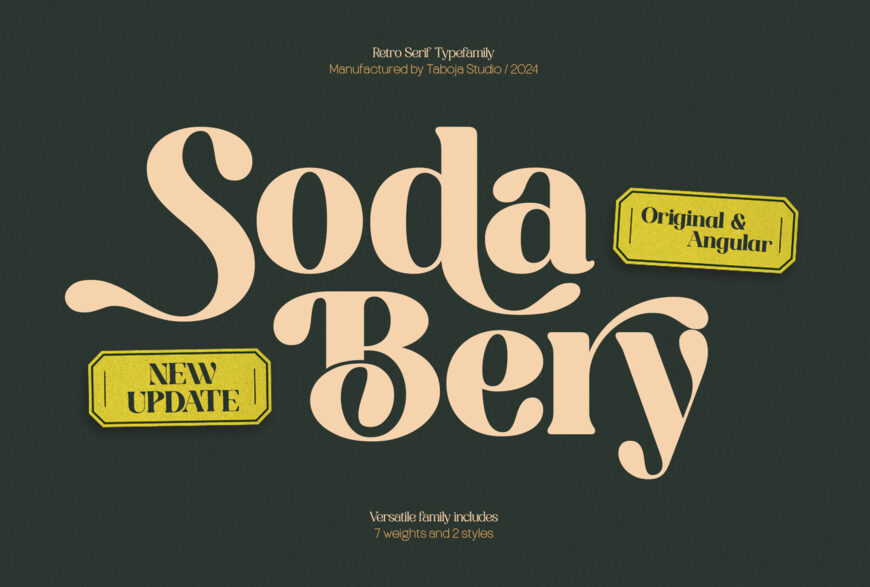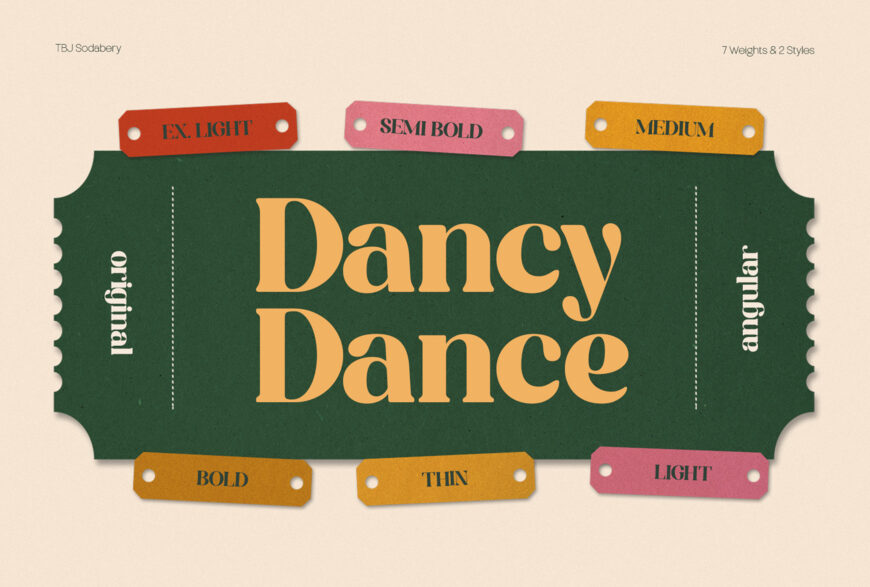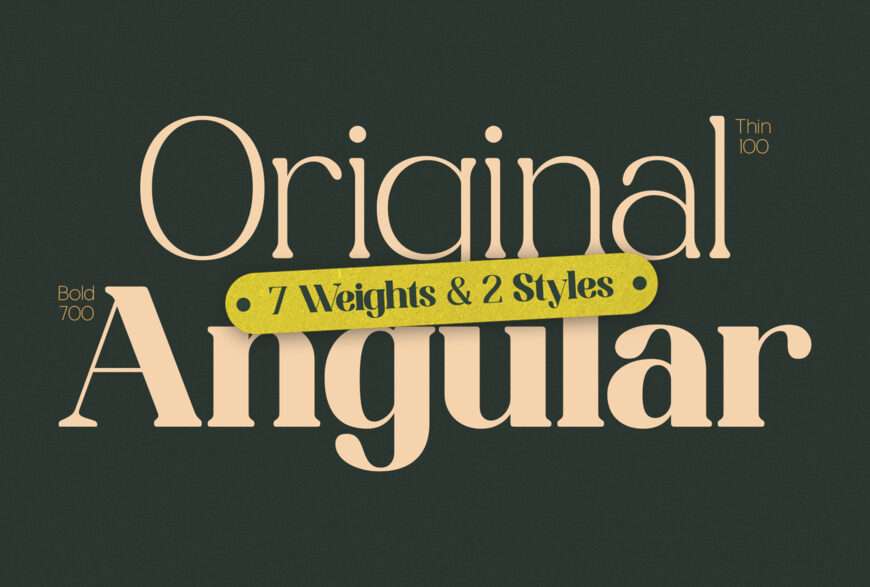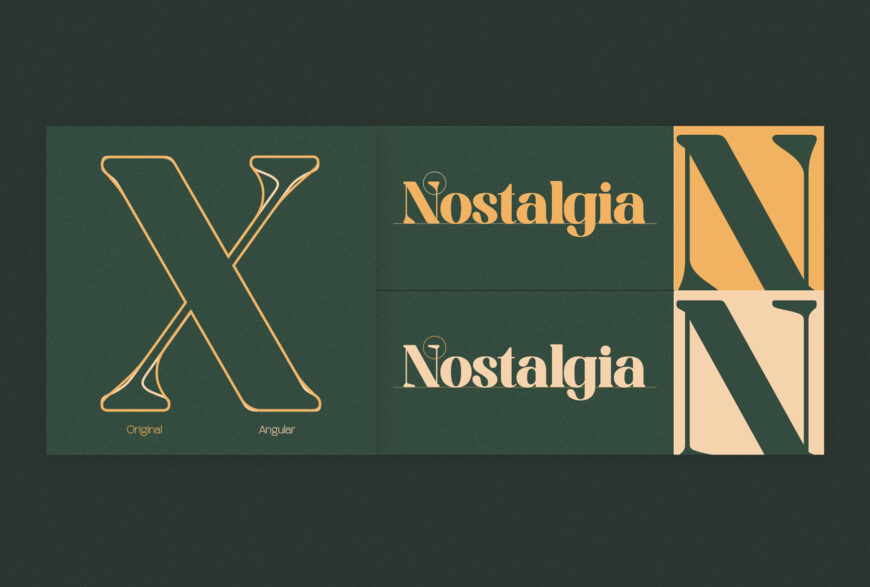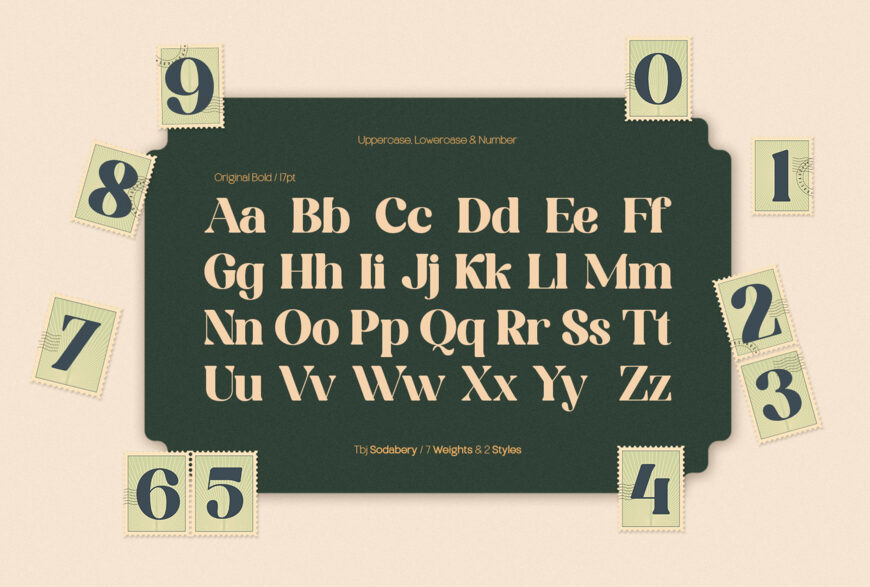
BJ Sodabery brings retro charm with modern versatility. The newly expanded Sodabery font family now includes 7 weights and two distinct styles: Original and Angular Serif. This retro-inspired typeface adapts effortlessly to both print and digital projects.
Whether you need bold headlines or readable body text, Sodabery strikes the perfect balance of style and functionality. With improved readability and added alternates, it’s designed to grow with your creative needs.